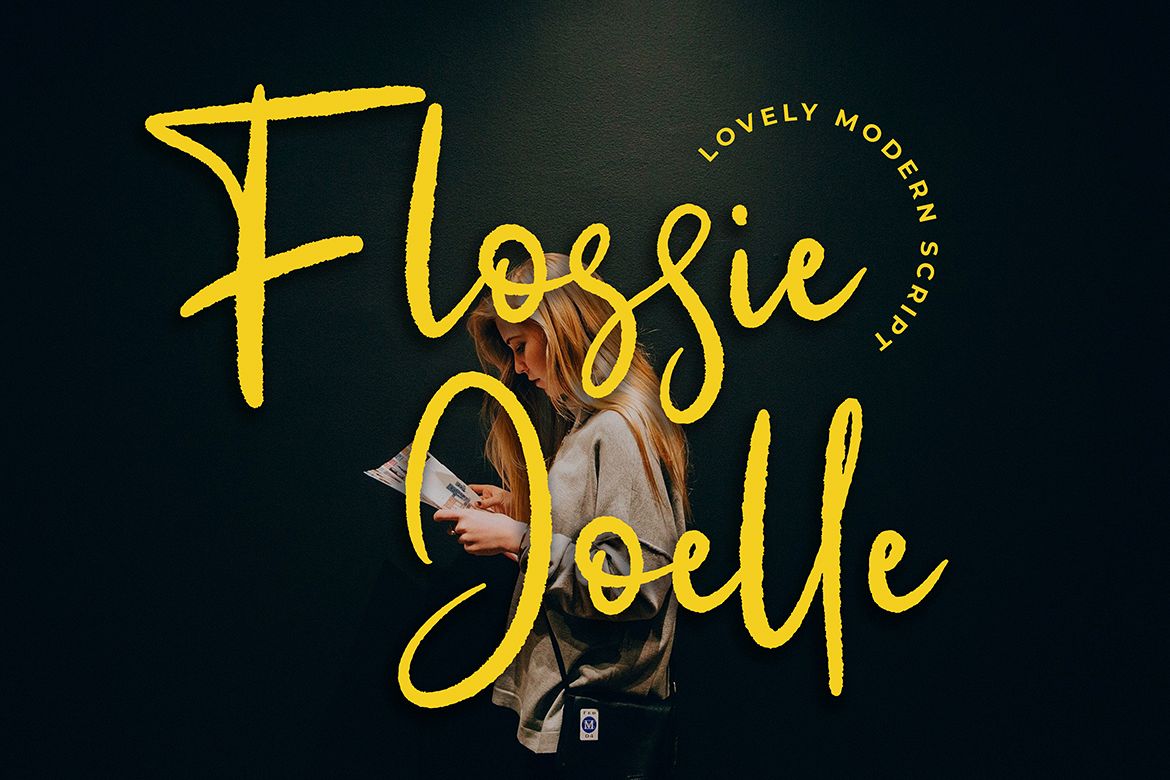
Flossie Joelle Modern Script Font
is a lovely modern script can be used for various purposes such as
logos, wedding invitations, t-shirts, letterheads, signage’s, labels,
and much more!
• Tons of glyphs
Flossie Joelle Modern Script Font
By Formatika Studio